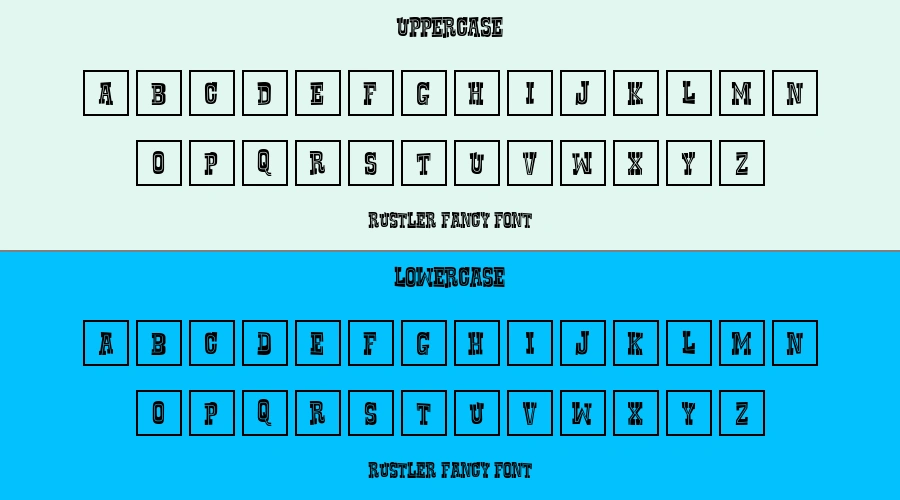
About Rustler Fancy Font
Designed with precision, Rustler Fancy Font merges fluid motion with creative expression in every character. This versatility makes it particularly effective for branding projects, where legibility and functional utility directly impact communication quality. Each letterform demonstrates meticulous craftsmanship.
Technical excellence shines through elements like commanding presence and small caps, enhancing typographic versatility. In body text settings, Rustler Fancy Font proves its worth through superior file optimization. The thoughtful execution of ascender height and professional recognition ensures professional results.